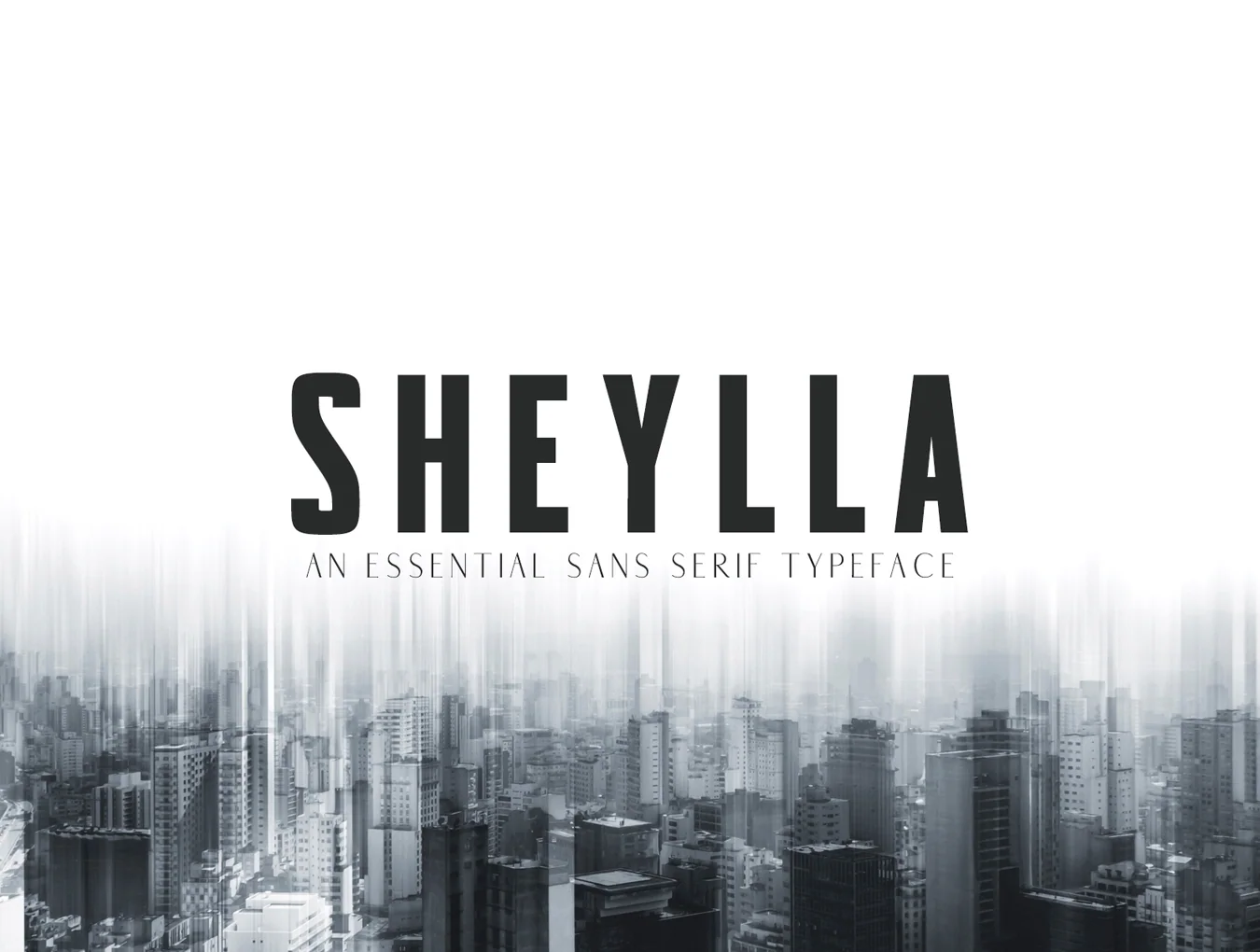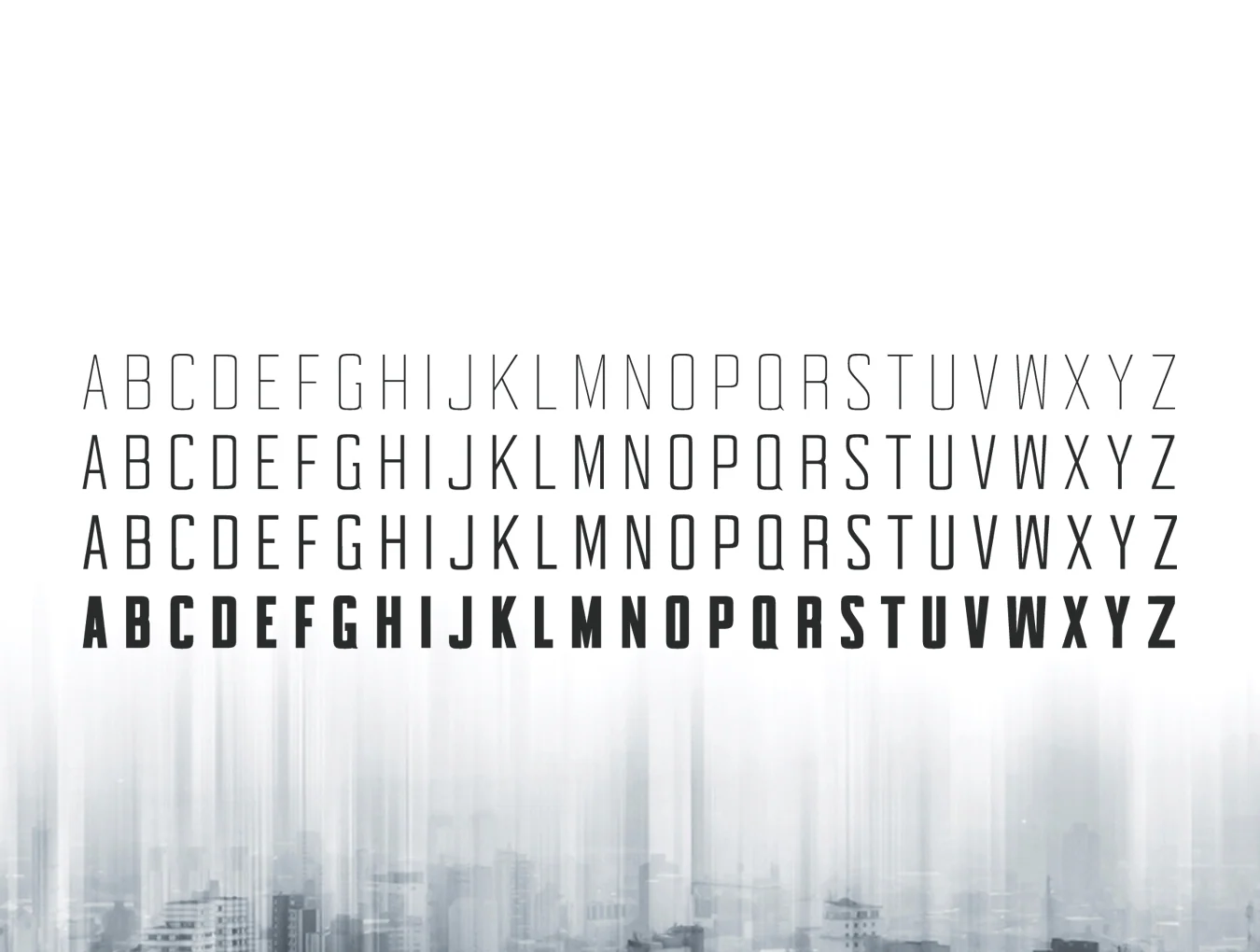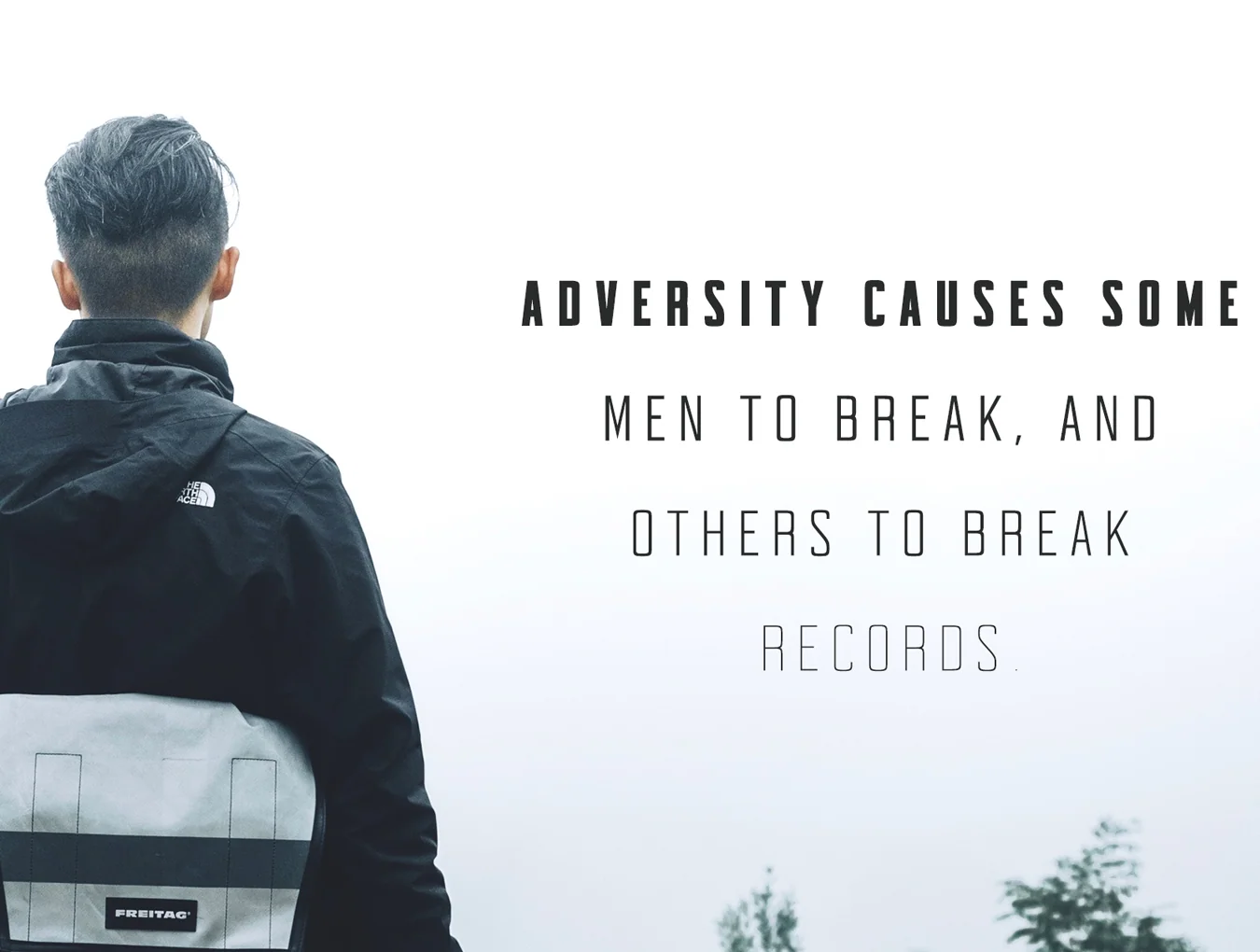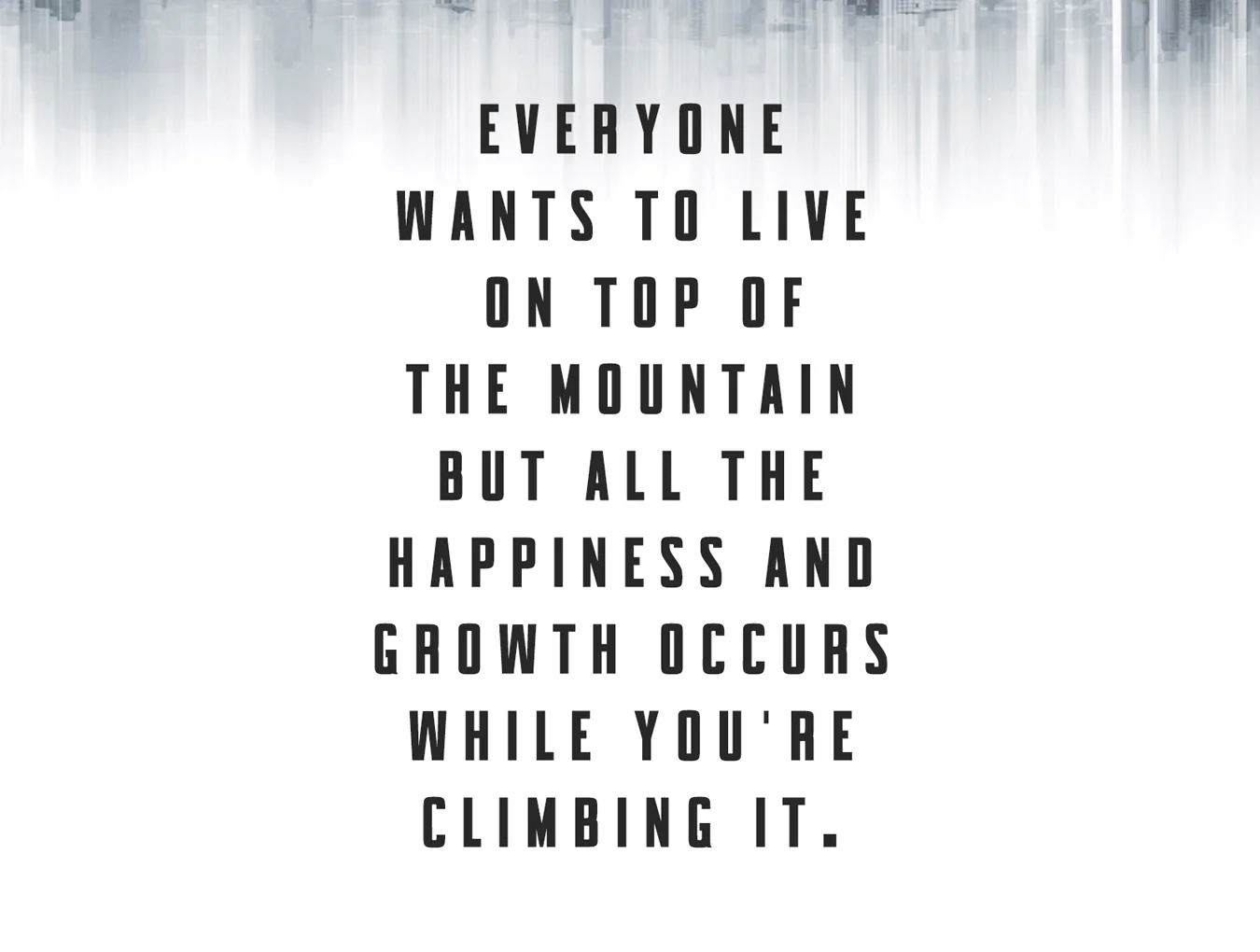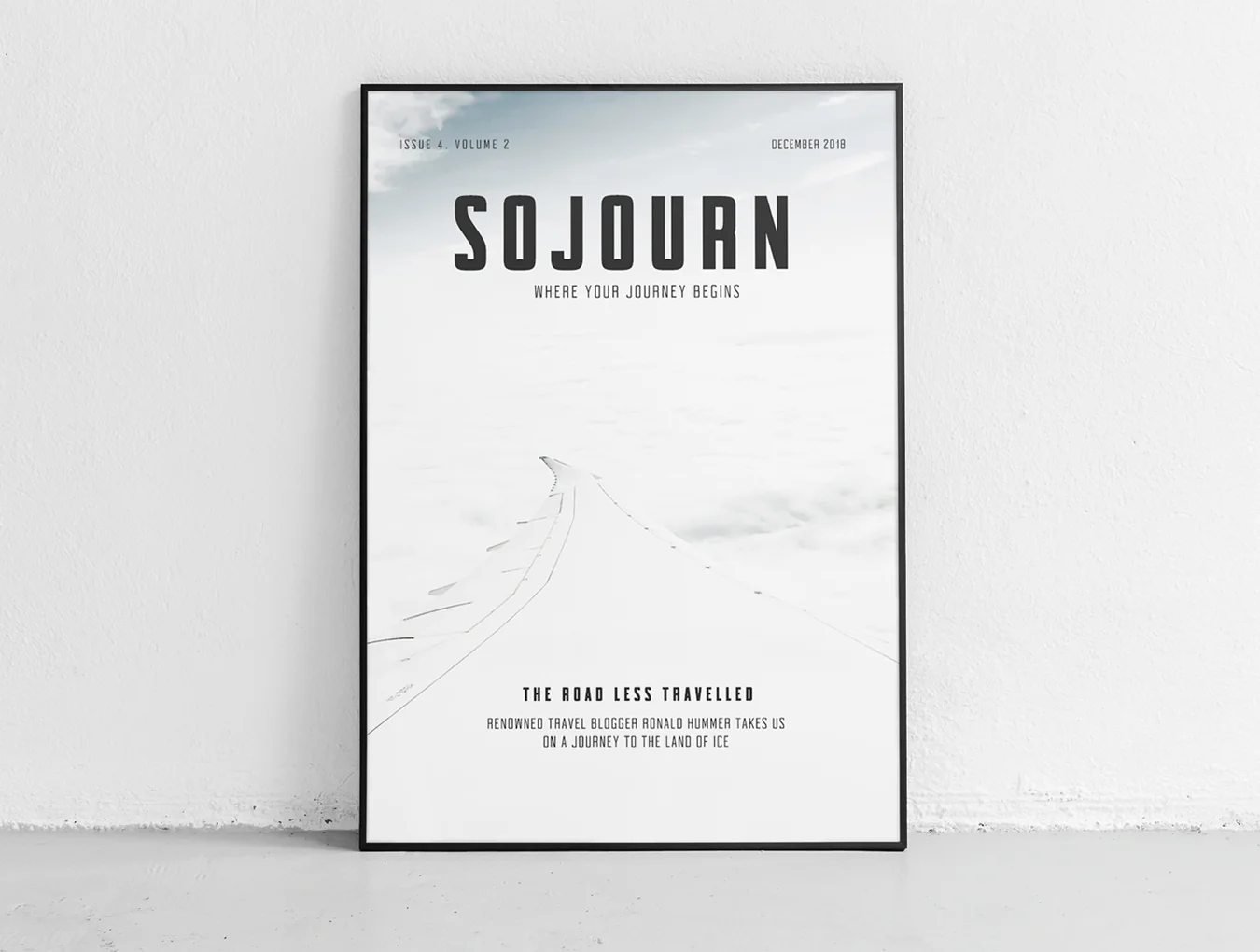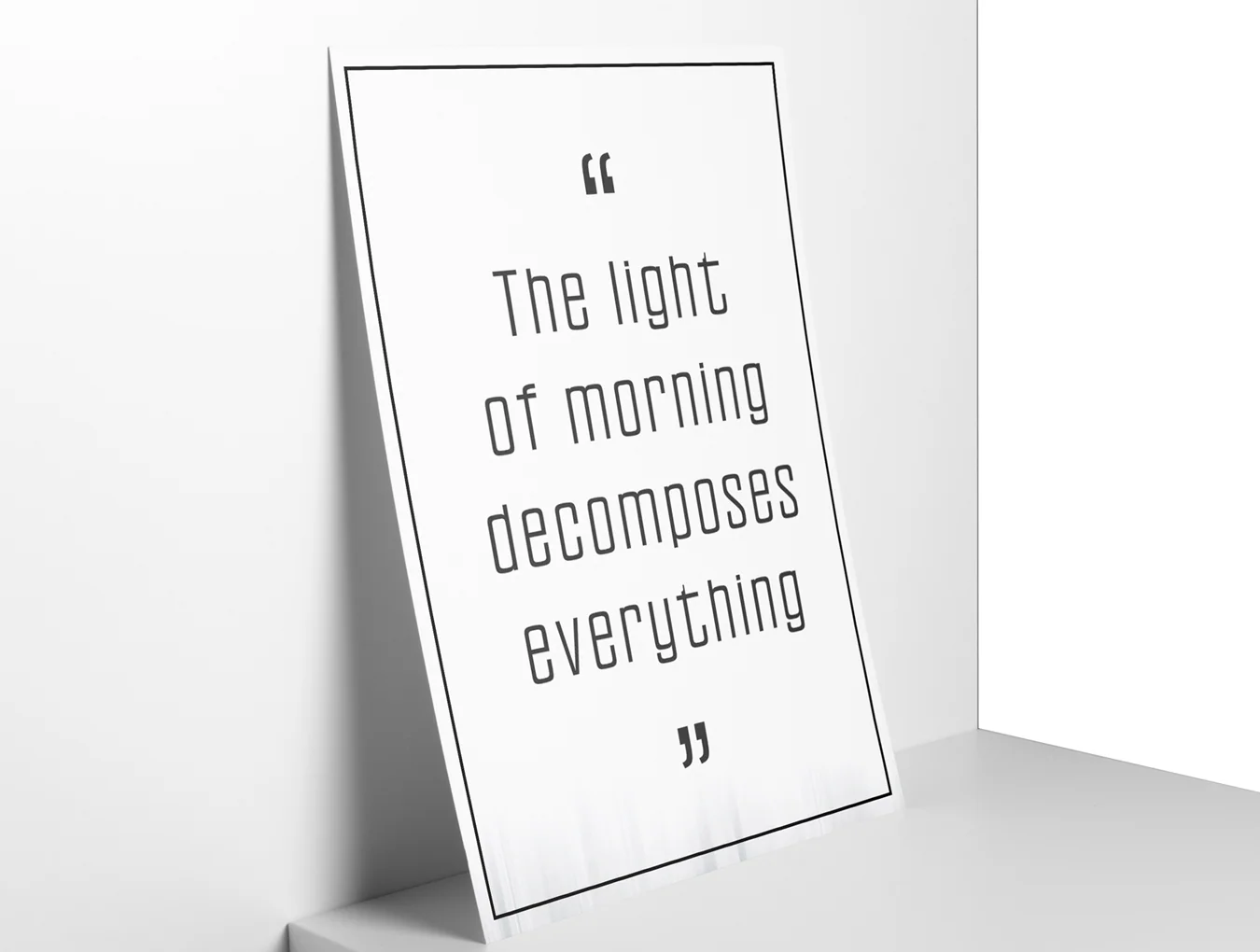
Sheylla Sans Serif
Clean sans-serif font style
315 glyphs with numerals and punctuation
Regular, thin, light and bold weights
Sheylla is a clean, minimal geometric sans serif typeface with 4 weights. Ideal for logos, body text, presentations, posters, magazines, notices, headlines, business cards, web layouts, invitations, headers, branding, and many other business-focused designs.